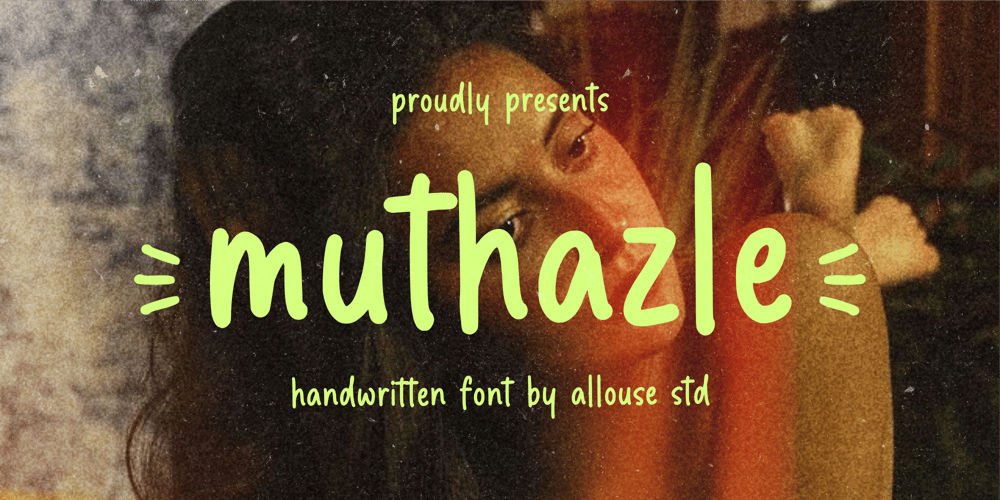
Muthazle Font Family was designed by Fachrizal Yusuf and published by Allouse Studio. Muthazle contains 1 styles and family package options. Proudly Presenting, Muthazle A Charming Monoline Font.Muthazle is perfect for any titles, logo, product packaging, branding project, megazine, social media, wedding, or just used to express words above the background.Muthazle also come with Multi-Lingual Support.Enjoy the font, feel free to comment or feedback, send me PM or email. Thank You!